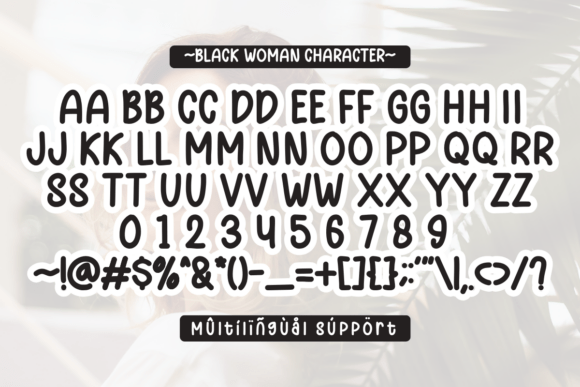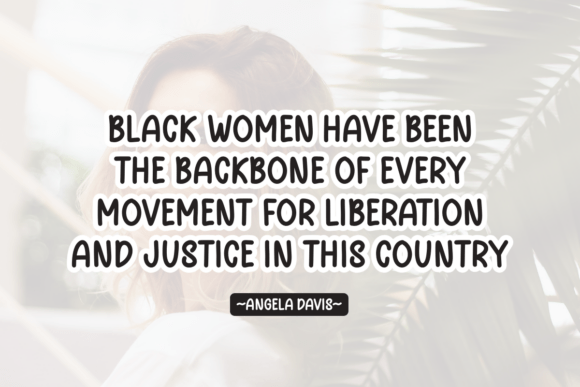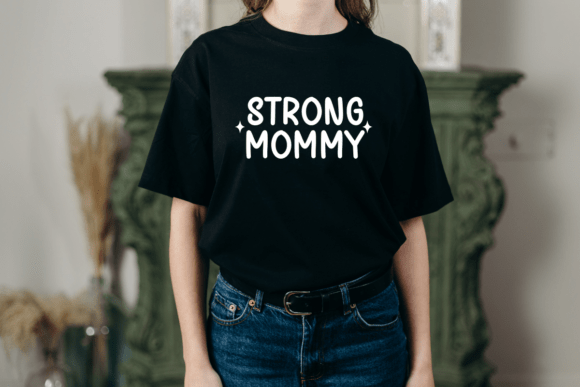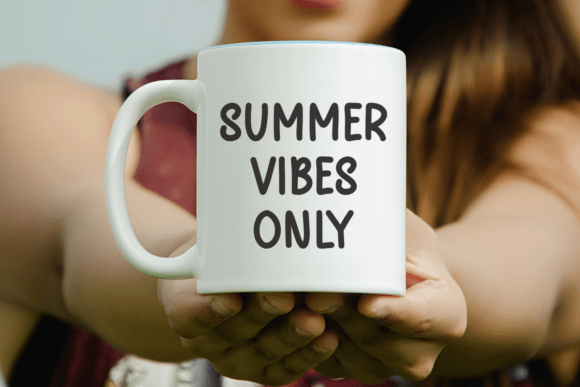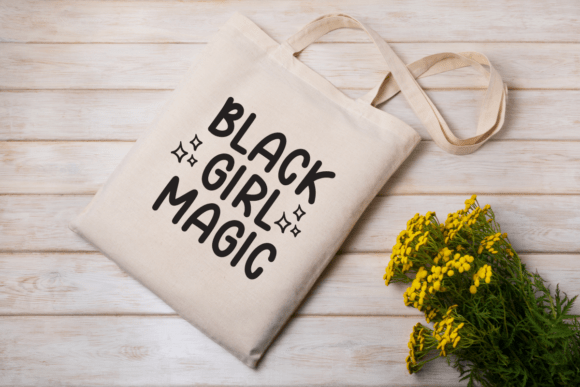
Introducing Black Woman Font: The Ultimate Choice for Modern Designers and Crafters
In the world of typography, fonts play a crucial role in conveying messages, expressing emotions, and creating visually appealing designs. For designers and crafters, finding the perfect font can be a daunting task, especially when looking for something bold, yet minimalist. This is where the Black Woman Font comes in – a stunning sans serif font that has taken the design community by storm. In this article, we’ll dive into the world of Black Woman Font, exploring its features, uses, and benefits for designers and crafters alike.
What is Black Woman Font?
Black Woman Font is a bold and minimalist sans serif font, carefully crafted to make a statement. Its clean lines, simple shapes, and elegant curves make it perfect for a wide range of design projects. Whether you’re working on greeting cards, wedding invitations, gift labels, mugs, t-shirts, or quotes, this font is sure to elevate your designs to the next level.
Key Features of Black Woman Font
• Bold and Minimalist: Black Woman Font boasts a bold yet minimalist design, making it perfect for creating striking and modern designs.
• Sans Serif: The font’s sans serif design ensures that your text remains clean and easy to read, even at smaller font sizes.
• Versatile: Use Black Woman Font for a variety of design projects, from greeting cards and wedding invitations to gift labels, mugs, and more.
• Elegant Curves: The font’s elegant curves add a touch of sophistication to your designs, making them perfect for special occasions.
Uses of Black Woman Font
Black Woman Font is an incredibly versatile font that can be used for a wide range of design projects, including:
• Greeting Cards: Create stunning greeting cards for special occasions like birthdays, anniversaries, and holidays.
• Wedding Invitations: Make your wedding invitations stand out with the elegant and modern design of Black Woman Font.
• Gift Labels: Add a personal touch to your gifts with beautifully designed labels featuring Black Woman Font.
• Mugs and T-Shirts: Create eye-catching designs for mugs and t-shirts that are sure to turn heads.
• Quotes and Posters: Use Black Woman Font to create inspiring quotes and posters that convey your message with style.
Benefits of Using Black Woman Font
So, why choose Black Woman Font for your design projects? Here are just a few benefits:
• Easy to Read: The font’s clean design ensures that your text remains easy to read, even at smaller font sizes.
• Highly Versatile: Use Black Woman Font for a wide range of design projects, from digital designs to print materials.
• Time-Saving: With Black Woman Font, you can create stunning designs in no time, thanks to its simple and elegant design.
• Unique and Modern: The font’s bold and minimalist design ensures that your designs stand out from the crowd.
Tips for Using Black Woman Font
To get the most out of Black Woman Font, here are a few tips:
• Experiment with Colors: Try pairing Black Woman Font with different colors to create unique and eye-catching designs.
• Play with Sizes: Experiment with different font sizes to add emphasis and create visual interest.
• Mix and Match: Combine Black Woman Font with other fonts to create stunning and unique designs.
Font Name Black Woman Font
Author CraftedType Studio
In conclusion, Black Woman Font is a bold and minimalist sans serif font that’s perfect for designers and crafters looking to create stunning designs. With its clean lines, elegant curves, and versatile design, this font is sure to elevate your designs to the next level. Whether you’re working on greeting cards, wedding invitations, gift labels, or more, Black Woman Font is the ultimate choice for modern designers and crafters.